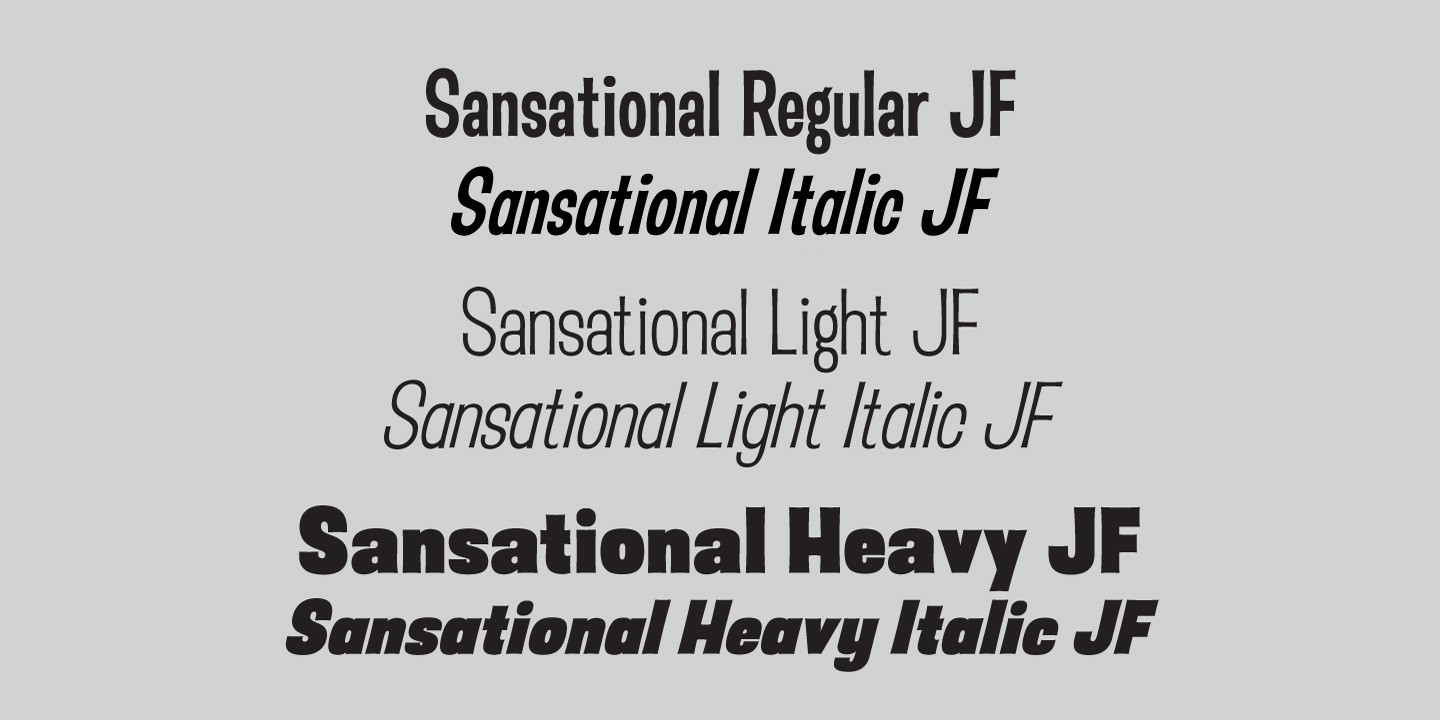
Sansational JF Pro Font is perfect for innovative tech companies, cutting-edge design agencies, modern corporate headquarters, progressive startups, contemporary marketing campaigns, sleek product packaging, professional digital interfaces, advanced technology branding, forward-thinking business communications, and sophisticated brand identity systems.
Sansational JF Pro Font is exciting because it delivers sensational clarity and professional excellence with precision-engineered letterforms that embody innovation and contemporary sophistication, making it perfect for brands that need to communicate cutting-edge expertise, professional authority, and the confident competence of industry leaders.
The Sansational JF Pro Font family includes comprehensive weights from Thin to Black with matching obliques, extended character sets, multilingual support, and professional OpenType features, providing designers with complete typographic systems for creating cohesive brand experiences across all platforms and applications.
When your project demands professional excellence and contemporary innovation, Sansational JF Pro Font Free Download provides the perfect typographic foundation for industry-leading communications. This versatile sans-serif typeface combines technical precision with human accessibility, ensuring your brands project both competence and approachability. The clean letterforms and comprehensive weight range make this font an essential choice for technology companies, professional services, and any application where modern credibility, innovative thinking, and professional excellence are crucial for establishing market leadership and building trust with clients who expect the highest standards of contemporary design and cutting-edge professional presentation in today's competitive business environment.